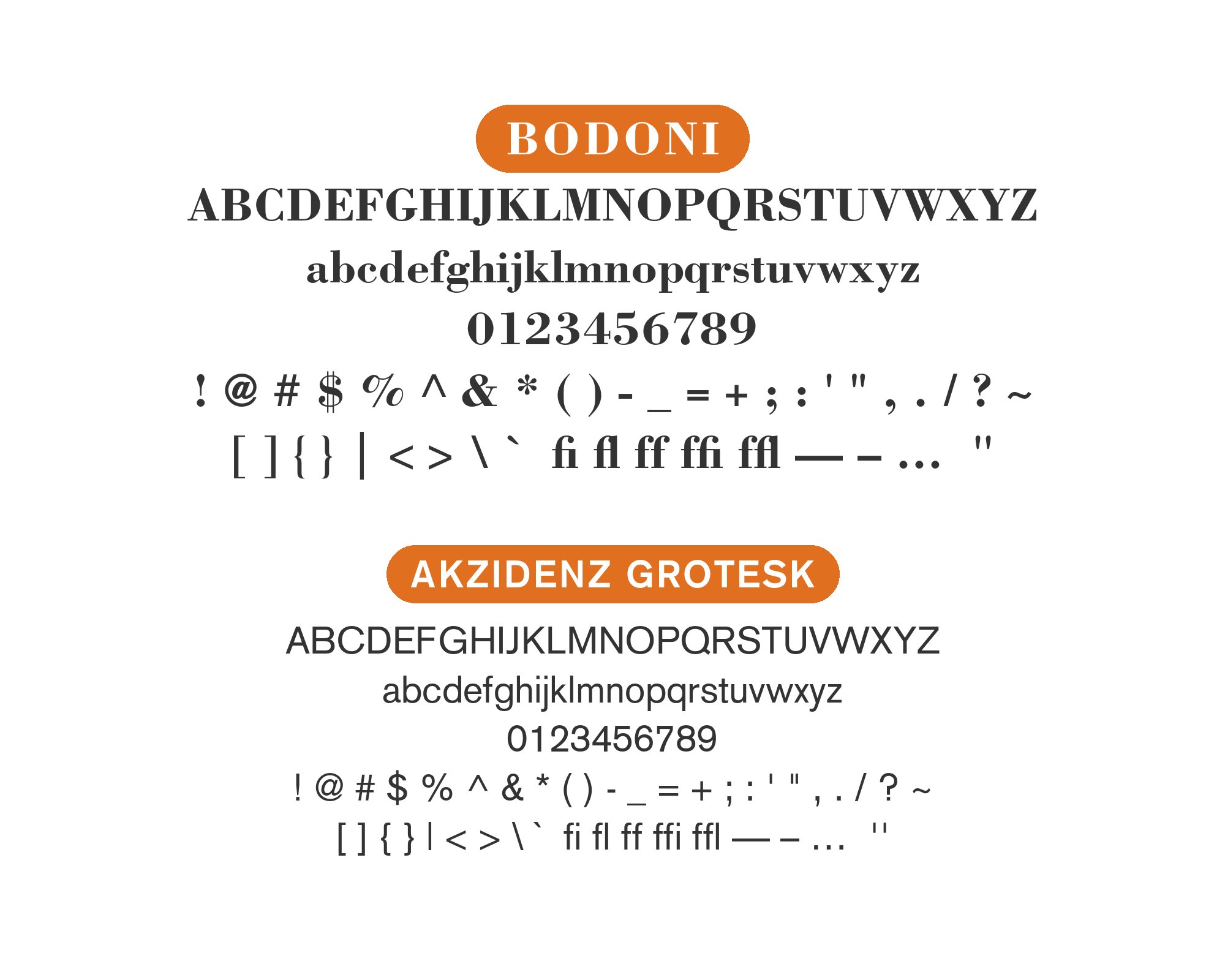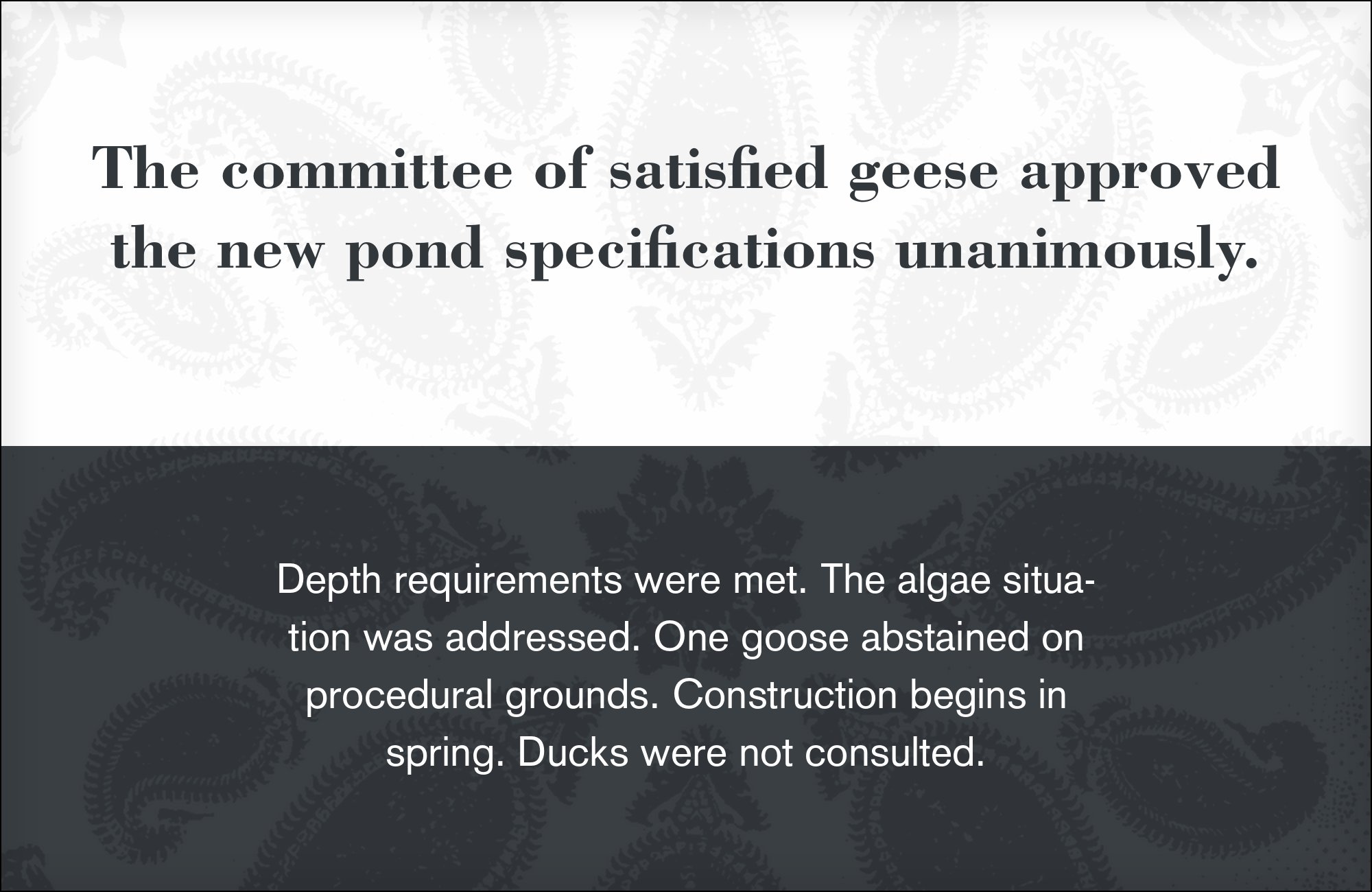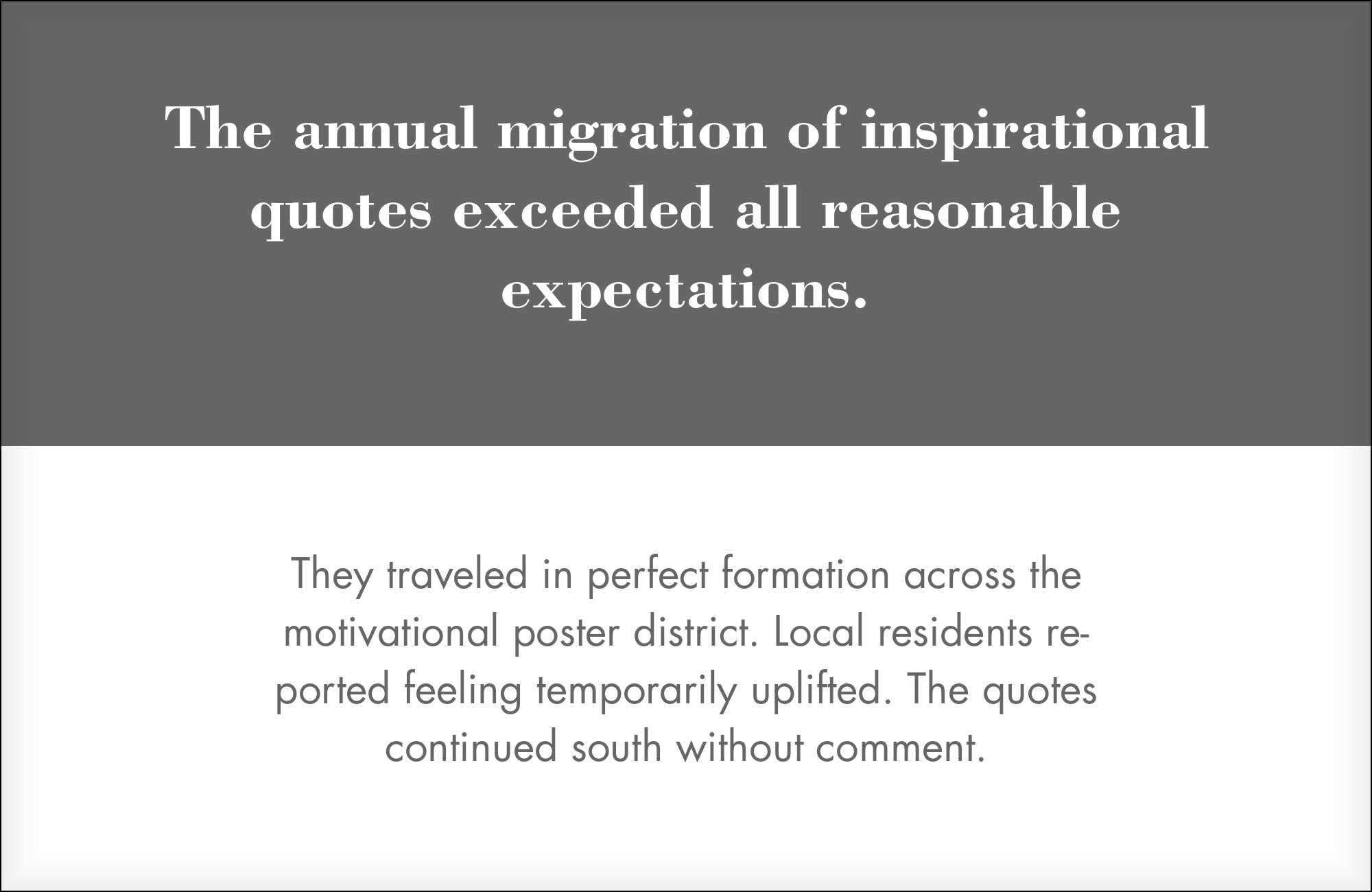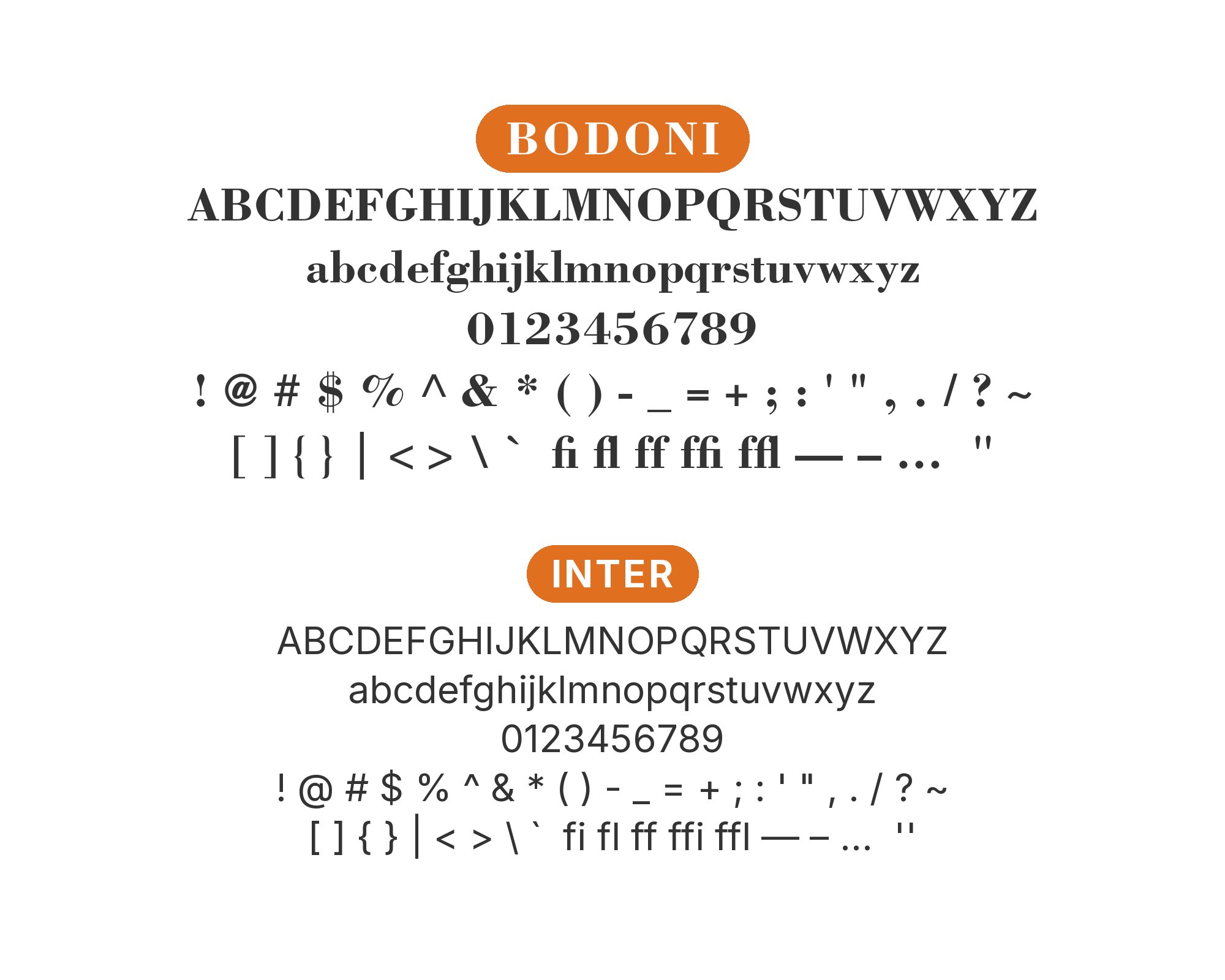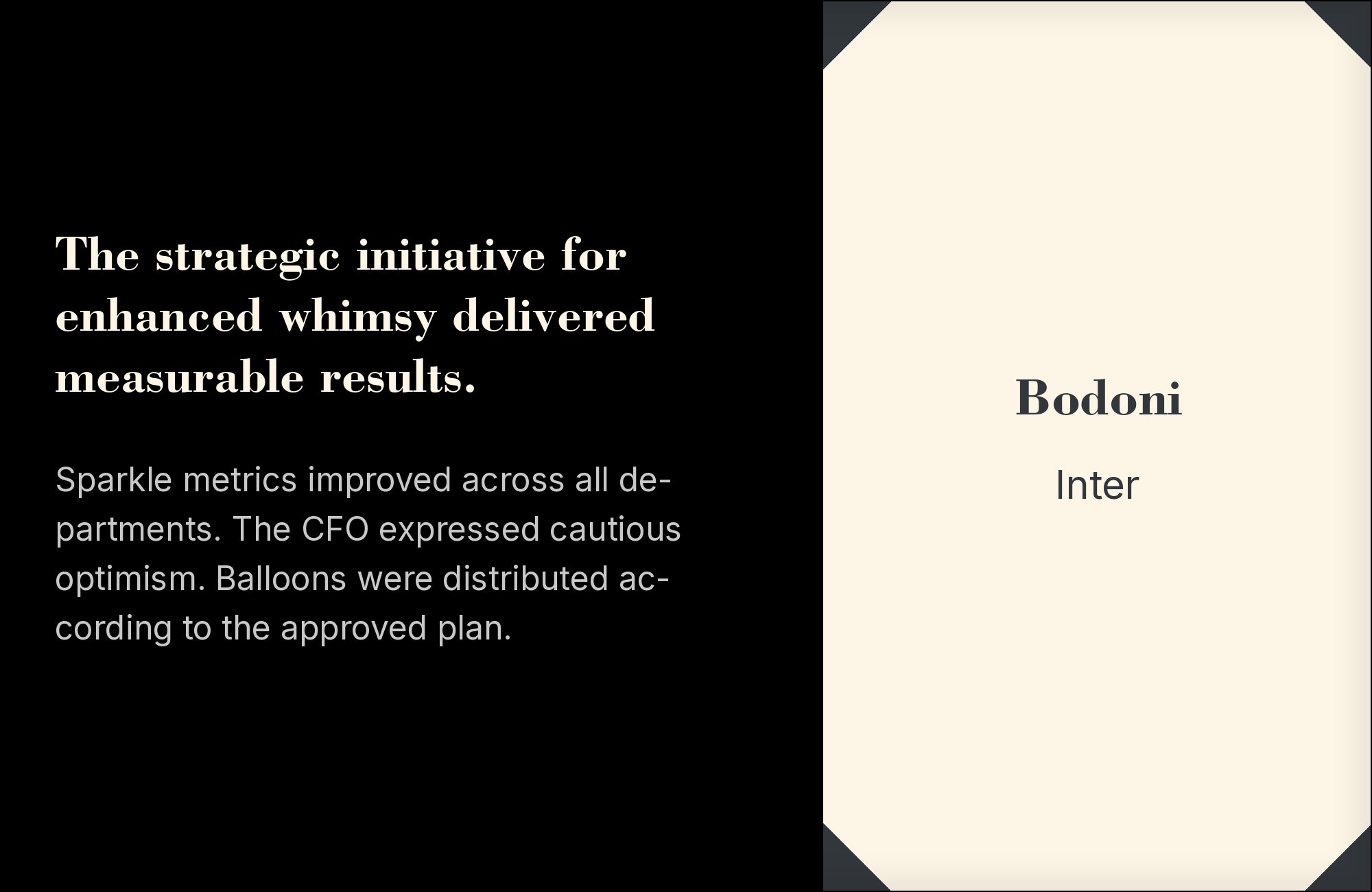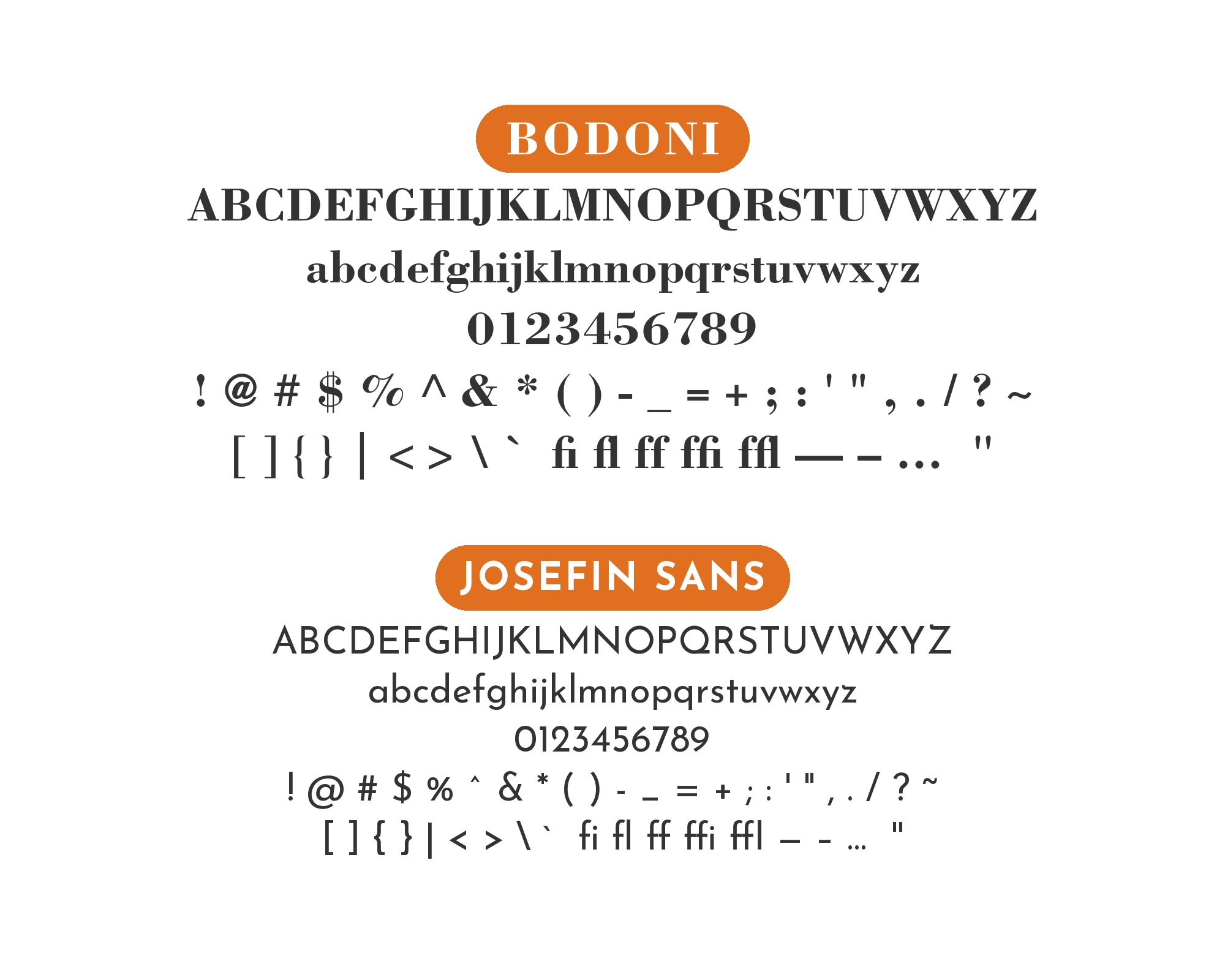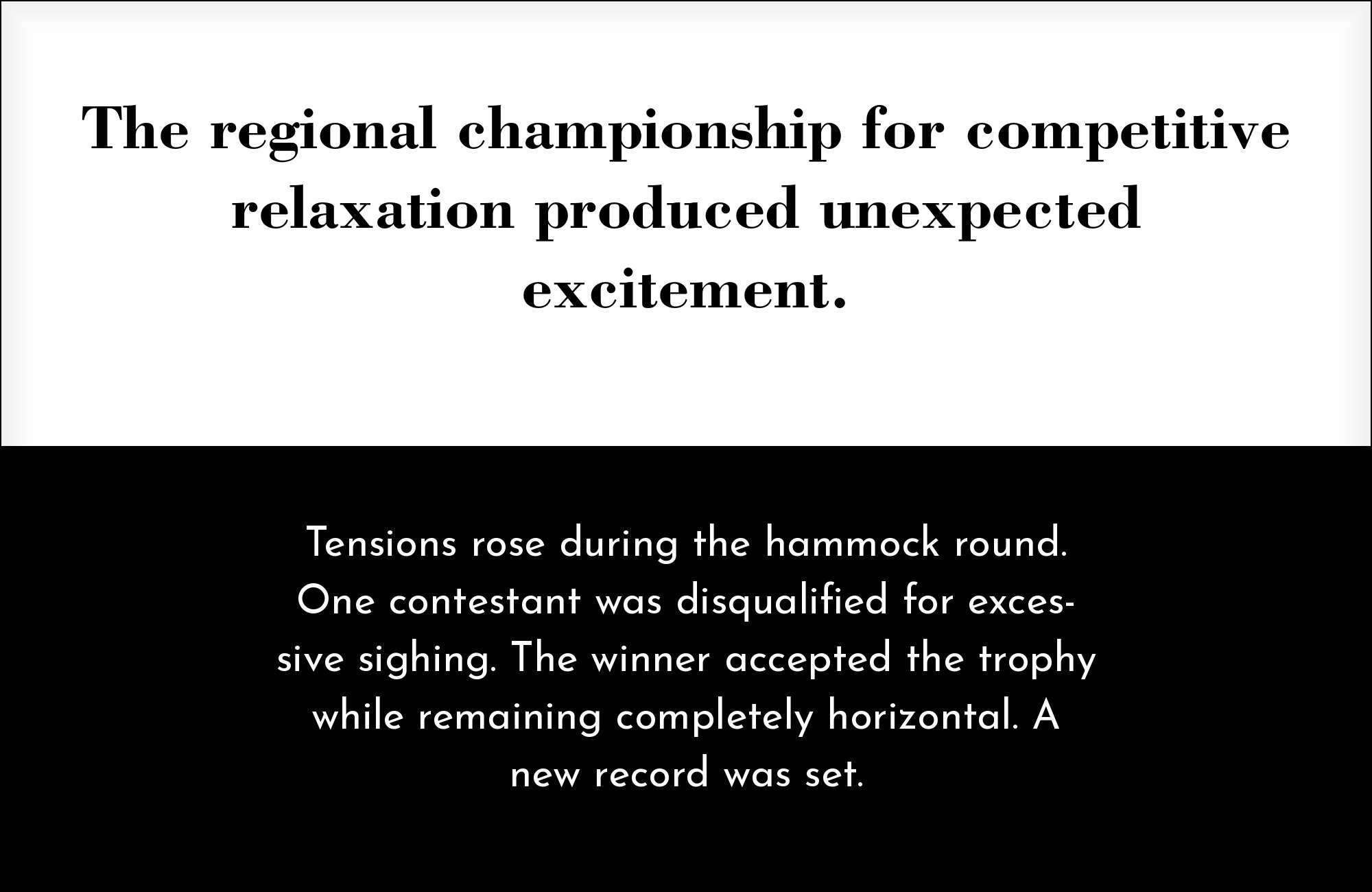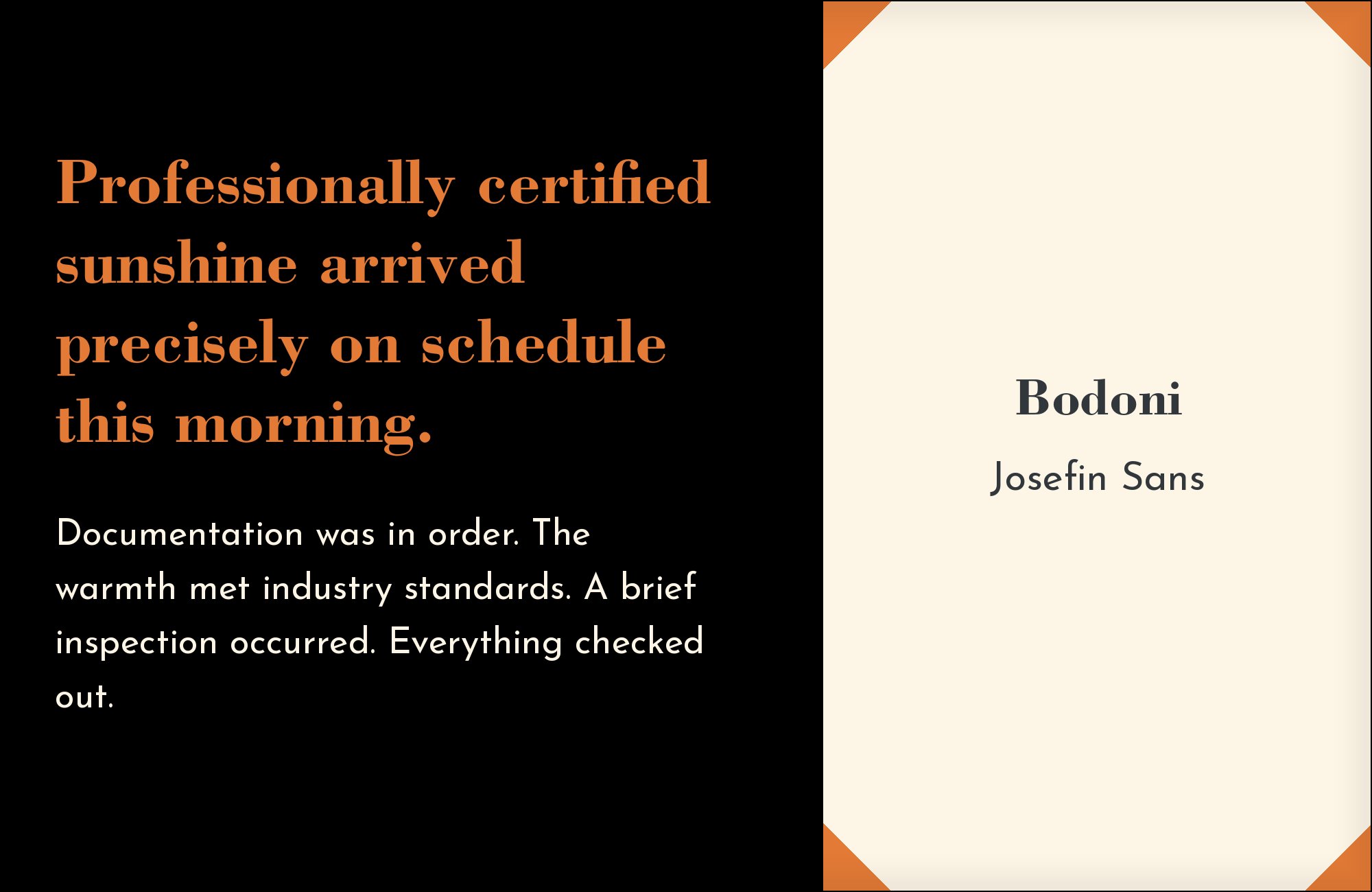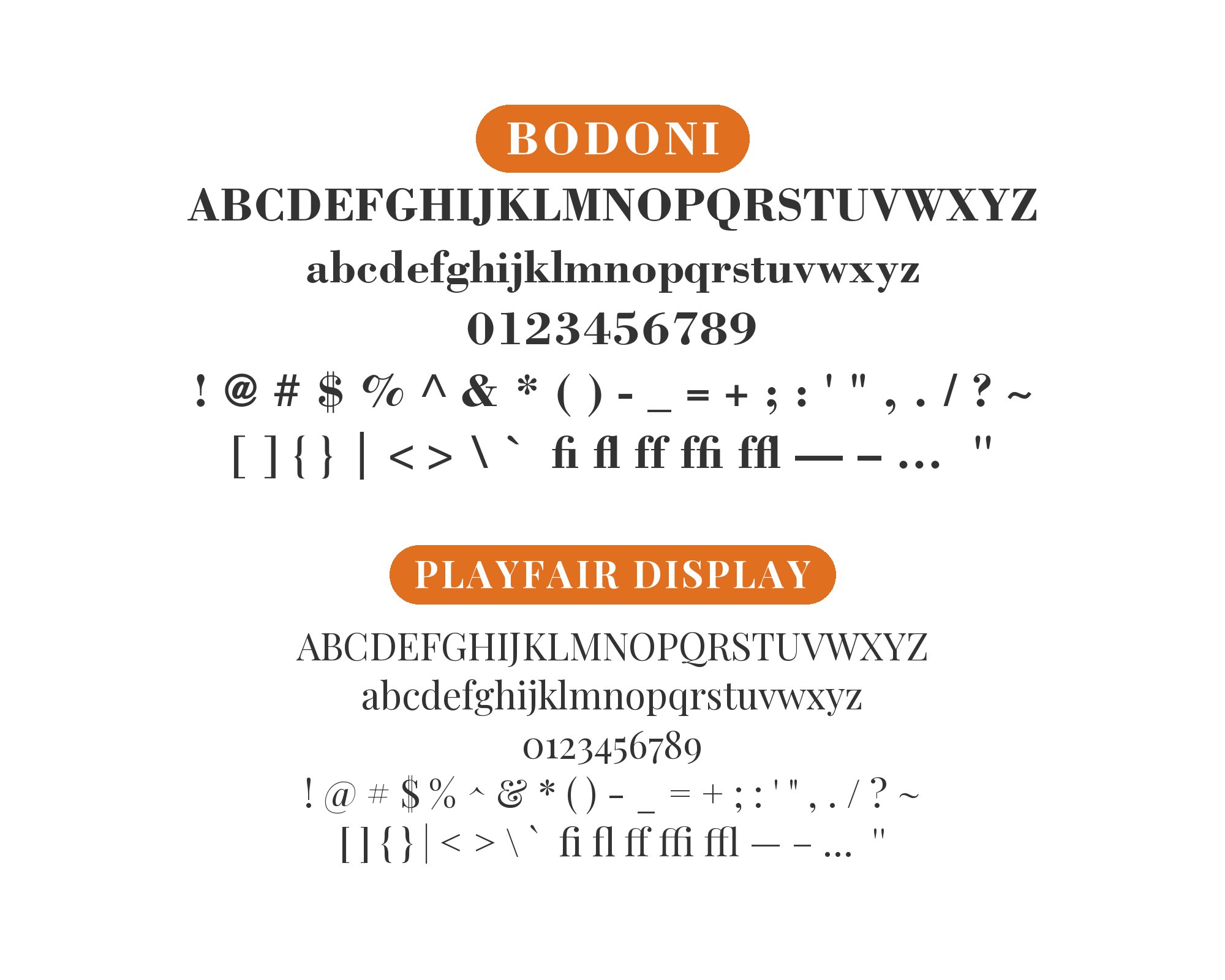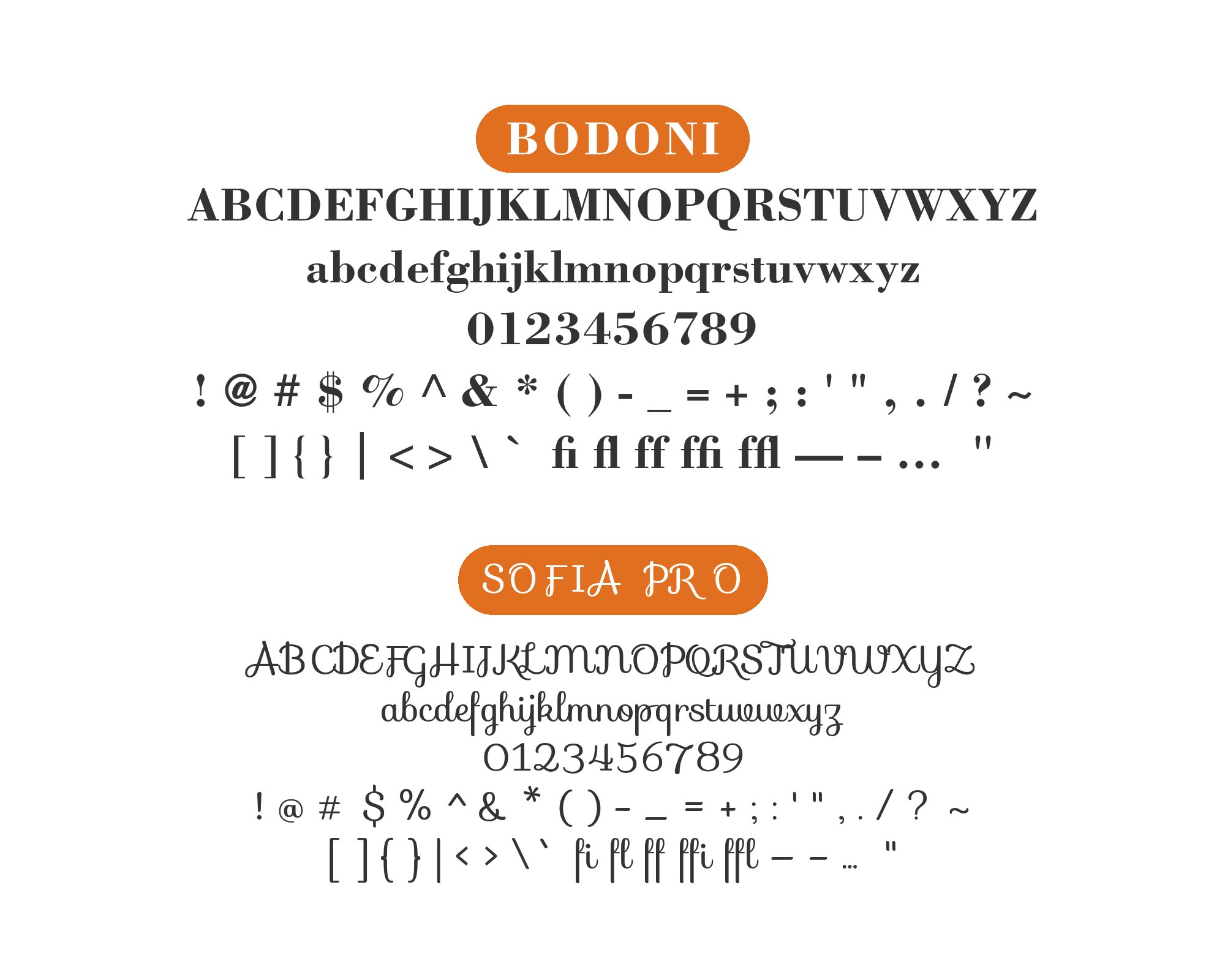
Bodoni pairs great with Futura, Montserrat and Inter. All 10 pairings are shown below in real rendered specimens, with the reason each one works.
What fonts go with Bodoni? The free cut most readers can actually open is Bodoni Moda. Few serifs announce themselves as loudly — razor-thin hairlines snapping against strokes several times their weight, on a face built for headlines rather than paragraphs.
Giambattista Bodoni cut these letterforms in Parma in the final decades of the 18th century, pushing the transitional serif toward its logical extreme: flat, unbracketed serifs, a strict vertical stress, and thick-thin contrast so severe that the thinnest strokes approach hairlines. The result is a Didone in the truest sense — a construction built on ruled geometry rather than the calligraphic pen strokes older serifs still carry. That extremity is a display decision, not an accident of period; Bodoni’s hairlines vanish at paragraph sizes regardless of which digital cut is used.
Bodoni has many modern digitizations — Bauer Bodoni, ITC Bodoni, the free variable Bodoni Moda — and almost none of the pairing advice out there distinguishes between them, since the extreme contrast that drives every pairing decision survives across cuts. The two strategies that actually work are opposites: a calm, low-contrast sans underneath to give the drama somewhere to land, or a second high-contrast serif that doubles down on the same register instead of softening it. Here are 11 fonts that pair well with Bodoni, ordered from the most easily obtained to the more specialized.
1. Futura
Paul Renner built Futura in 1927 from circle, triangle and straight line, sanding away stroke contrast almost entirely — the calm, evenly-weighted structural floor that Bodoni’s razor-thin drama needs to stand on. Neither face borrows anything from the other’s era, so the contrast stays clean instead of collapsing into a single vague “vintage” mood the way two period-matched faces sometimes do. Luxury fashion and lifestyle brands often use this pairing, and more than one source recommends it. Set Futura for supporting copy, labels and navigation, and let Bodoni carry the masthead-scale drama on its own. Available through Adobe Fonts and similar professional libraries.
Montserrat’s letterforms come from painted signage in Buenos Aires, built on near-true geometric circles that give it a confident, branded presence — better suited to headlines, buttons and short marketing copy than dense paragraphs. Against Bodoni’s severe contrast, the pair reads as “classic drama meets modern brand voice,” with Bodoni carrying the emotional weight and Montserrat carrying everything functional underneath it. It is free on Google Fonts, which makes it one of the least expensive ways to give a Bodoni-led brand a contemporary UI layer. Keep it to captions, pull quotes and interface labels rather than long-form reading.
3. Inter
Inter was built specifically for screen interfaces — a restrained, low-contrast grotesque with a large x-height and open apertures designed to stay legible at the small sizes real products actually use. Set beneath Bodoni, it disappears into body copy and UI chrome exactly as intended, leaving the headline all of the visual weight in the system. That division of labour matters more with Bodoni than with most serifs, because its hairlines genuinely break apart below display size — Inter is what carries the reading once Bodoni has made its entrance. Free and open source, with no licensing decision standing between choosing it and shipping it.
4. Playfair Display
Claus Eggers Sørensen designed Playfair Display in 2011 as a high-contrast serif, drawn with the same transitional-to-Didone logic as Bodoni but with slightly wider, screen-tuned curves that hold up better at moderate sizes. Used as a secondary display or subhead voice underneath Bodoni’s masthead-level drama, it extends the same register instead of introducing a competing texture — useful when a layout needs two levels of serif emphasis without ever reaching for a sans. Free on Google Fonts as a variable file with a weight axis from Regular to Black; the optical-size axis lives on the later Playfair family, not on Playfair Display, so keep this cut at subhead and display sizes where its hairlines hold.
5. Source Sans Pro
Paul Hunt’s Source Sans Pro was Adobe’s first open-source release, built as a screen-optimized, low-contrast workhorse with generous spacing and open apertures. Set at the small body sizes where Bodoni’s hairlines would otherwise fracture, it holds paragraphs together calmly while a Bodoni headline does all of the dramatic work above. The pairing is a practical rather than an inspired one — a freely licensed, dependable sans that asks nothing of the reader and gives Bodoni all the room it needs to be the loud element in the layout. Suited to editorial sites, packaging copy and anywhere fine print needs to stay genuinely legible.
Find Out How6. Space Grotesk
Space Grotesk carries over a few quirks from its monospace origin — slightly irregular curves and proportions rather than pure geometric neutrality — which gives it a faintly mechanical, contemporary edge instead of the studied blankness of a strict grotesque. Set against Bodoni’s razor-precise drama, that imperfection reads as a deliberate counterpoint: Bodoni supplies historical extremity, Space Grotesk supplies present-tense texture. The combination suits tech-adjacent or design-forward brands that want Bodoni’s editorial weight without leaning fully into fashion-house formality. Free on Google Fonts, and best kept to interface and short marketing copy rather than long paragraphs.
7. Josefin Sans
Josefin Sans carries its own 1920s-revivalist charm — narrow, geometric letterforms with a noticeably low x-height, drawn from the same era of type design that produced faces like Kabel. That is a different period from Bodoni’s late-18th-century engraving, but the gap reads as considered rather than clashing, two distinct historical registers meeting on the same page. Keep it strictly to subheads and short display lines; the low x-height struggles as dense body copy, and Bodoni’s own drama already dominates any layout it appears in. Free on Google Fonts, which makes it an easy, low-risk way to add period character without a licensing decision.
Whatever you choose, test it at the sizes you will actually publish. Bodoni’s hairlines are the first thing to fail — they disappear below display size regardless of the cut — and a pairing that looks striking in a large specimen can go illegible the moment real body copy drops beneath it. Set actual text, at actual sizes, before committing.